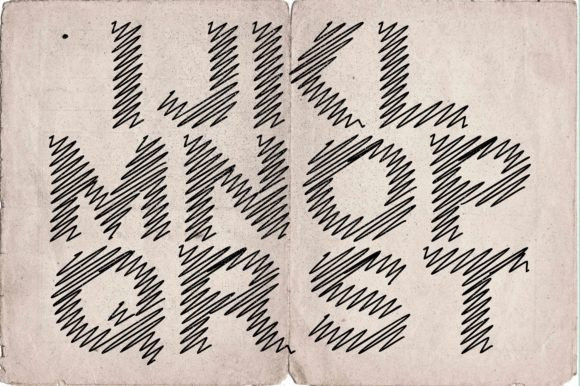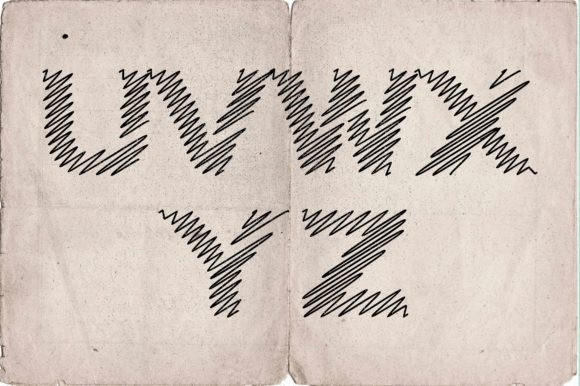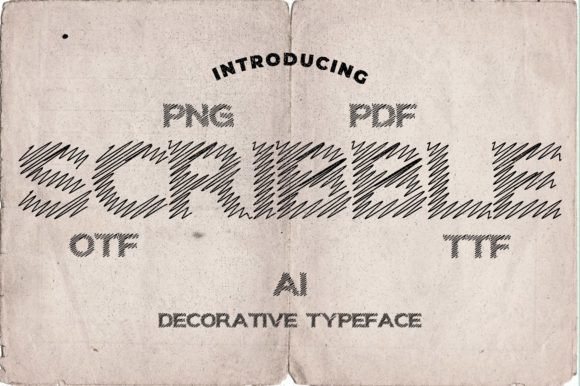
SCRIBBLE DISPLAY FONT
Scribble Display Font is a really cute, simple yet unique decorative font that can be used for all chalkboard quotes or teaching material! Its authentic look will add a personal and realistic feel to your designs.